How to Choose the Best Halloween Fonts for Your Project
The best fonts for Halloween projects should do more than look spooky in a specimen image. They need to stay readable on invitations, cut cleanly for Cricut crafts, remain recognizable on shirts, and create enough visual impact for party signs or seasonal product packaging.
I organized this collection around real production needs rather than placing 47 similar horror fonts in one long list. You will find playful ghost lettering for childrenโs events, bold display faces for signage, witchy scripts for invitations, distressed styles for horror merchandise, and color fonts for printable designs. I have not personally tested every typeface, so these recommendations are based on the designs, included styles, stated compatibility, and how I would use each font in a practical layout.
- Best for bold signs: Blockton Halloween
- Best for boutique personalization: Some Witch
- Best for playful monster lettering: Spook Halloween
- Best for darker event graphics: Horror Spray
- Best for print and sublimation: Halloween Spooky Color Font
Best Halloween Fonts for Crafts, Parties, and Products
1. Halloween Font Bundle
This bundle is my practical starting point for makers who need several Halloween moods without downloading fonts one at a time. It combines playful, creepy, handwritten, and decorative styles, giving you options for invitations, Cricut projects, apparel, signs, and printable products.
The main benefit is flexibility: a single collection can cover childrenโs party graphics and darker seasonal merchandise. The limitation is that bundled fonts may vary in detail and readability, so I would test each title at its final size before committing to a full product line.
Best for: craft collections, party bundles, seasonal product ranges
Key features: multiple font styles, broad Halloween theme, Cricut and Silhouette use
2. Spooky Halloween
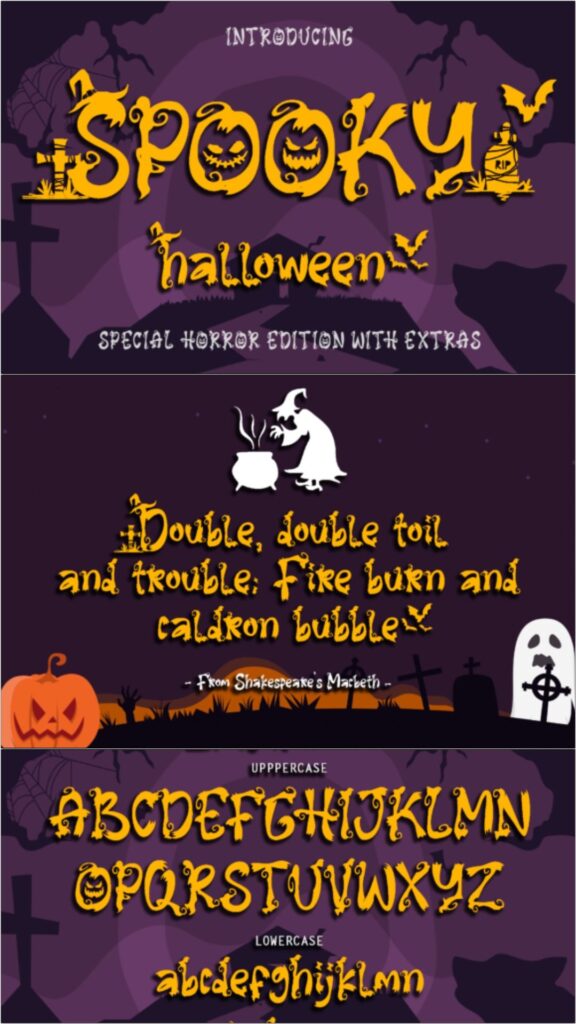
Spooky Halloween uses decorative shapes and an unmistakably creepy silhouette, making it a strong headline font for October graphics. I like it for designs that need an immediate seasonal signal without relying on extra cobwebs, pumpkins, or illustrated borders.
Its PUA-encoded extras give designers more room to customize names and short phrases. Because the characters carry substantial visual detail, I would reserve it for large titles rather than ingredient lists, event details, or other small supporting text.
Best for: party posters, shirt graphics, Halloween signs
Key features: decorative display style, PUA encoding, strong seasonal character
3. Retro Spooky
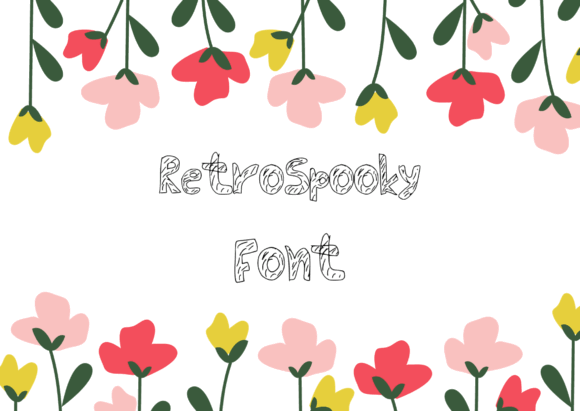
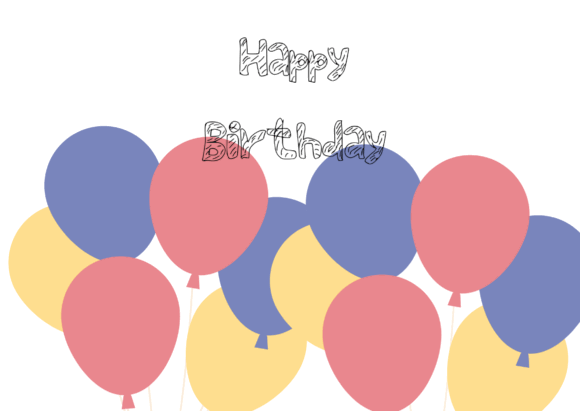
Retro Spooky is my pick for designers who want Halloween typography without the usual dripping blood or jagged horror treatment. Its nostalgic display style suits groovy ghost shirts, vintage party invitations, stickers, and colorful October social graphics.
The rounded retro personality pairs naturally with orange, cream, purple, and faded black palettes. It is less convincing for a genuinely frightening haunted-house campaign, but that softer tone makes it more useful for family products and trend-led apparel.
Best for: retro shirts, cute party invitations, stickers
Key features: nostalgic display shapes, cutting-machine compatibility, playful mood
4. Spooky
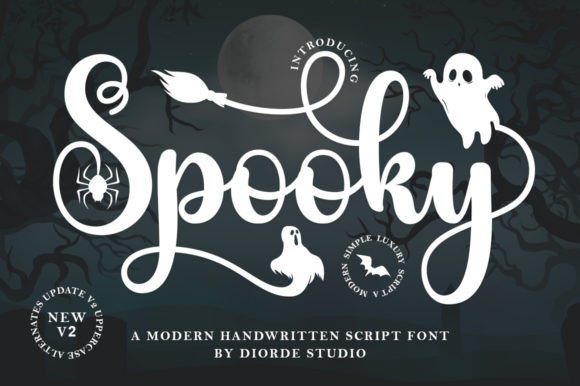
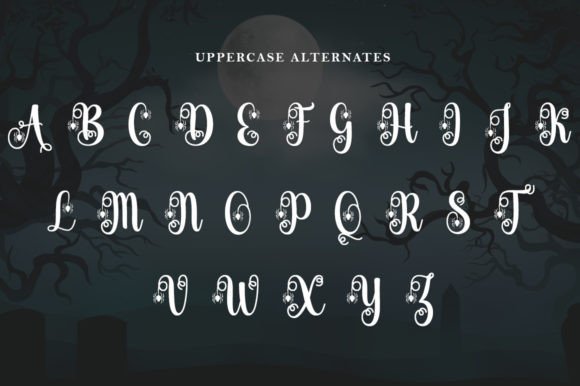
This Spooky font has a friendly Halloween identity that can support childrenโs crafts, classroom decorations, and casual party products. Its decorative letterforms add character while remaining less aggressive than the sharper horror fonts later in this collection.
I would use it for short names, treat-bag labels, or a central phrase on a sweatshirt. The PUA-encoded glyphs and swashes offer customization, although highly embellished alternates should be used selectively when cutting small vinyl lettering.
Best for: treat bags, classroom decor, casual apparel
Key features: fun Halloween style, PUA glyphs, decorative swashes
5. Scary Halloween
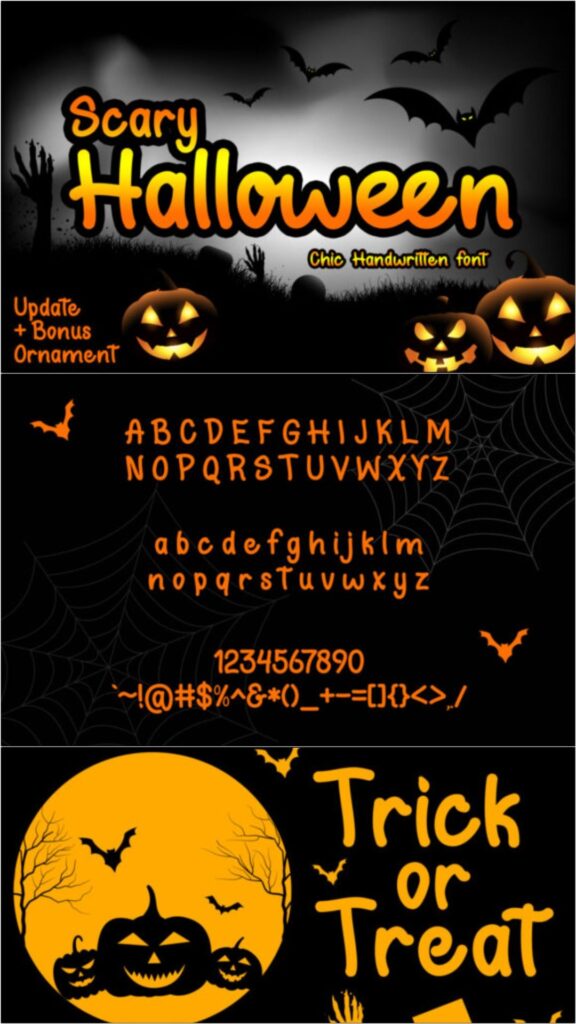
Despite its name, Scary Halloween leans cute and informal rather than terrifying. The handwritten construction is useful for friendly invitations, favor tags, childrenโs shirts, and product labels that need a relaxed handmade quality.
An included ornament dingbat font gives you extra decorative material for building coordinated layouts. I would pair the handwriting with a sturdy sans serif for dates and addresses, since the casual strokes are better at carrying personality than dense information.
Best for: favor tags, kidsโ shirts, friendly invitations
Key features: handwritten style, ornament dingbats, casual readable forms
6. Spooky Uppercase Sans Serif
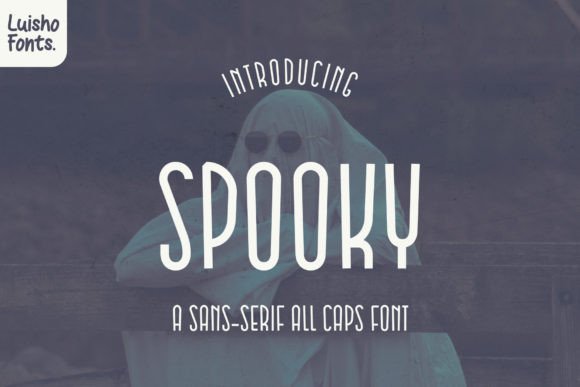
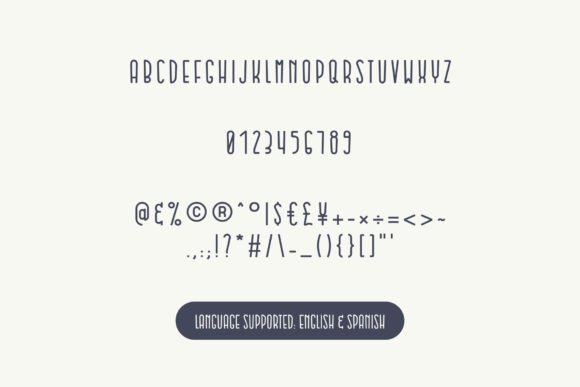
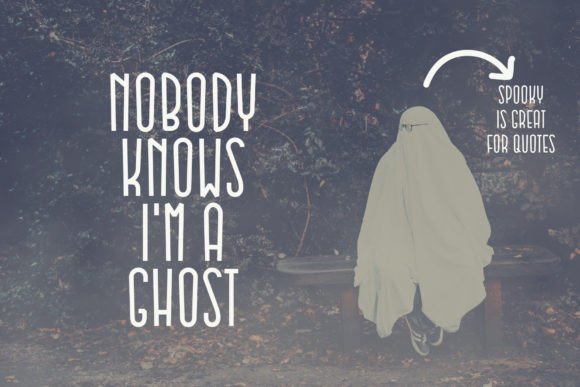
This uppercase sans serif takes a cleaner route to horror typography. Its simple capital structure is suitable for posters, social graphics, card headlines, product labels, and merchandise where decorative fonts might become too busy.
I like it as a bridge between themed lettering and practical display type. The all-cap format creates strong impact, but longer phrases may feel visually loud, so tighter copy and generous spacing will produce the strongest result.
Best for: product labels, poster headings, social graphics
Key features: uppercase alphabet, sans serif construction, horror-inspired styling
7. Scary Halloween Trio
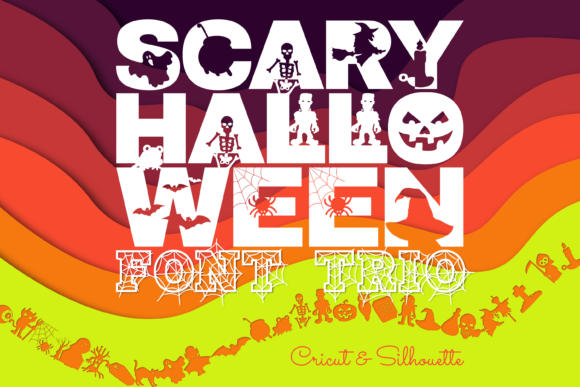
Scary Halloween Trio combines sans serif, serif, and dingbat components, which makes it especially useful for building a coordinated party suite. You can create a main title, secondary wording, and matching decorative accents without mixing unrelated type families.
My favorite use would be a childrenโs party set containing an invitation, cupcake toppers, labels, and a welcome sign. The style is more charming than frightening, so makers targeting adult horror fans may prefer one of the rougher display fonts below.
Best for: coordinated party suites, childrenโs games, classroom projects
Key features: three coordinated styles, serif and sans options, dingbat symbols
8. Blockton Halloween
Blockton Halloween uses thick, balanced letterforms that should hold their presence on both small stickers and large party posters. The block construction gives the font more structure than highly irregular novelty lettering, while the spooky treatment keeps it seasonally relevant.
I would choose it for product packaging, apparel, classroom signs, and bold greeting cards. Its weight is helpful for cutting and printing, although a full paragraph in this style would feel heavy and reduce the impact of the individual letters.
Best for: packaging, stickers, large signs
Key features: chunky block forms, bold readability, playful spooky details
9. Halloween Witch
Halloween Witch blends vintage display lettering with a dramatic seasonal mood. It suits apothecary labels, witch-themed invitations, potion-bar signs, bookish Halloween decor, and packaging that needs an older, mysterious appearance.
I would pair it with aged paper textures, botanical drawings, moons, or restrained ornamental borders. The theatrical styling may lose clarity at label-size dimensions, so keep the primary wording short and move practical details into a simpler companion font.
Best for: apothecary labels, witch parties, vintage decor
Key features: vintage influence, dramatic display shapes, magical atmosphere
10. Brushstroke Horror
Brushstroke Horror has the uneven energy of hand-painted warning lettering, making it more convincing for frightening themes than polished novelty fonts. I would use it on haunted-house flyers, horror movie graphics, escape-room promotions, and distressed seasonal apparel.
The rough edges provide atmosphere before any illustrations are added. That texture can become muddy in small prints or intricate vinyl cuts, so this is best treated as a large-format headline font with minimal surrounding detail.
Best for: haunted attractions, horror posters, distressed shirts
Key features: rough brush texture, scary display style, high visual energy
11. Hello Halloween
Hello Halloween is built around a clearly seasonal decorative style that suits October greetings, party graphics, and themed merchandise. The lettering creates an enchanted nighttime mood rather than a graphic horror look, making it approachable for a broad family audience.
I would use it for short welcoming phrases, printable wall art, cards, or a front-facing shirt design. Because decorative characters already carry substantial personality, surrounding artwork should remain simple enough to keep the words in focus.
Best for: greeting cards, wall art, family party graphics
Key features: decorative characters, enchanted mood, strong Halloween identity
12. Spooky Halloween Sans Serif
This version of Spooky Halloween uses sharper, bolder sans serif forms to create a tense and atmospheric headline. It is a strong candidate for haunted-house posters, event flyers, party invitations, and warning-style decor.
The defined letter structure should be easier to position in modern layouts than a loose script. I would avoid using it for lengthy wording, since the pointed shapes and dramatic rhythm are intended to command attention rather than quietly deliver information.
Best for: haunted-house flyers, event posters, eerie invitations
Key features: sharp sans serif forms, bold weight, atmospheric style
13. Halloween Nightmare
Halloween Nightmare is an expressive display font for projects that need a darker, more forceful title. Its unusual letter shapes can anchor horror posters, seasonal album art, haunted-event graphics, and bold apparel designs.
I would let this font occupy most of the composition rather than competing with multiple illustrations. It is not the best option for gentle childrenโs crafts or formal invitations, but its intensity is useful when a design must look unsettling at first glance.
Best for: horror apparel, haunted events, dramatic posters
Key features: unusual display forms, dark mood, attention-grabbing silhouette
14. Horror Spray
Horror Spray combines brushstroke texture with dripping and bone-like details, creating an intentionally graphic horror appearance. I would use it for haunted attractions, scary postcards, event headings, theatrical posters, or adult Halloween merchandise.
The built-in effects reduce the need for extra decorative overlays, which can speed up a simple one-color design. Those same details create more production complexity, so inspect the artwork carefully before cutting it at small sizes or applying it to textured fabric.
Best for: horror events, theatrical posters, scary merchandise
Key features: brushstroke texture, dripping details, bone-inspired forms
15. Halloween Display Font
This bold Halloween display font provides a direct seasonal look for signs, craft projects, and merchandise. Its strong shapes make it useful when the title must remain visible from a distance or compete with illustrated pumpkins, bats, and other decorative elements.
I would consider it for porch signs, treat buckets, large decals, and sweatshirt graphics. The design is intentionally themed, so it has limited use outside the October season, but that specificity can be an advantage for focused product collections.
Best for: porch signs, large decals, seasonal sweatshirts
Key features: bold display weight, cutting-machine compatibility, obvious Halloween styling
16. Halloween Script
Halloween Script introduces a handwritten, flowing alternative to chunky monster lettering. It suits invitations, personalized signs, place cards, shirts, and craft projects that need a witchy or magical quality without becoming overly formal.
PUA-encoded glyphs and swashes allow you to create more distinctive names and opening words. I would simplify the alternates for vinyl work, since overlapping flourishes and thin connections can increase weeding difficulty at small dimensions.
Best for: personalized signs, invitations, witchy shirts
Key features: handwritten script, PUA encoding, decorative swashes
17. Horror
Horror uses thick display letters that provide a solid foundation for frightening seasonal graphics. It can carry a main title on a shirt, party poster, sign, or sticker without depending on thin strokes or delicate flourishes.
The substantial weight should translate better to basic cut projects than highly distressed alternatives. Its personality is broad rather than subtle, so I would add originality through the phrase, layout, color treatment, or accompanying illustration.
Best for: bold shirts, simple decals, horror signs
Key features: thick letterforms, spooky display style, broad craft compatibility
18. Halloween Spooky
Halloween Spooky has a trendy, playful display style that fits contemporary October graphics. I would use it for youth-oriented apparel, tote bags, printable signs, stickers, and social posts where a severe horror font would feel out of place.
Its approachable personality gives you freedom to use brighter palettes and cute illustrations. The font is less suited to elegant witch themes or serious horror branding, but it can serve as a reliable headline for cheerful seasonal merchandise.
Best for: trendy shirts, tote bags, cute printables
Key features: playful display style, broad craft compatibility, friendly seasonal mood
19. Spooky Nigth
Spooky Nigth combines a retro signature influence with cute Halloween-themed character details. The result is a decorative font suited to nostalgic shirts, party prints, mugs, childrenโs products, and social graphics built around friendly ghosts and bats.
I like it for designs where the typography itself needs to provide most of the illustration. The detailed characters can become visually dense in long phrases, so use a few memorable words and preserve generous spacing around the title.
Best for: nostalgic shirts, mugs, cute Halloween graphics
Key features: retro influence, character decorations, signature-style personality
20. Super Horror
Super Horror mixes horror references with cute, groovy, and retro styling. That hybrid direction makes it useful for popular eerie-cute products, including shirts, posters, party graphics, stickers, and merchandise aimed at customers who prefer playful darkness.
I would build a design around a compact two- or three-word phrase and let the font supply the visual hook. It may feel too lighthearted for a realistic haunted-house campaign, but the crossover style provides more commercial versatility than a strictly gruesome typeface.
Best for: eerie-cute apparel, retro posters, themed merchandise
Key features: groovy horror style, retro influence, playful display forms
21. Freaky Halloween
Freaky Halloween is a dingbat font rather than a conventional headline family, so I see it as a supporting design resource. It can help you add themed symbols to invitations, labels, cards, classroom sheets, and simple craft compositions.
Dingbats are useful for creating repeat patterns or matching icons without sourcing separate graphics. You will still need a readable text font for names and event details, and each symbol should be checked at production size before cutting or engraving.
Best for: decorative accents, repeat patterns, party stationery
Key features: Halloween dingbats, quirky symbols, coordinated graphic elements
22. Spooky Coming
Spooky Coming uses jagged edges and bold letter shapes to communicate a more traditional undead-horror mood. It is an obvious fit for haunted-house posters, scary party invitations, warning signs, and Halloween products with zombies, skeletons, or graveyard imagery.
The irregular silhouette gives short words immediate impact. I would avoid tightly packed lines because the rough edges need breathing room, and I would simplify nearby artwork so the headline remains legible from a distance.
Best for: zombie themes, haunted posters, scary invitations
Key features: jagged edges, bold lettering, undead-inspired mood
23. Happy Halloween
Happy Halloween is a quirky display font for upbeat seasonal messages rather than frightening horror designs. Its character makes it suitable for party invitations, greeting cards, tote bags, classroom decor, childrenโs clothing, and simple social graphics.
I would pair it with smiling pumpkins, candy shapes, friendly ghosts, or colorful confetti. The casual form may not suit luxury packaging or gothic themes, but it gives makers an accessible option for family-oriented October products.
Best for: childrenโs apparel, greeting cards, classroom decor
Key features: quirky display letters, cheerful tone, flexible seasonal use
24. Shadow Horror
Shadow Horror adds a creepy atmosphere while retaining enough structure for headlines and selected supporting copy. That balance makes it useful for Halloween stationery, event graphics, product labels, themed packaging, and poster titles.
I would choose it when a layout needs darker personality without the extreme distress of a brush or spray font. Although the designer presents it as flexible, longer copy should still be tested carefully because themed display faces can fatigue the reader quickly.
Best for: stationery, packaging, poster titles
Key features: creepy atmosphere, structured letterforms, versatile display use
25. Umitype Halloween
Umitypeโs Halloween font has an expressive display style created for posters, apparel, embroidery, crafts, and other festive applications. Its playful but haunting letterforms provide a broad middle ground between cute party typography and severe horror lettering.
I would consider it for makers who sell several kinds of seasonal products and need one recognizable headline font across the collection. For embroidery or small cuts, test the narrowest spaces and internal counters before producing a full batch.
Best for: embroidery designs, apparel, seasonal posters
Key features: playful haunting forms, versatile display use, broad product suitability
26. Witch Halloween
This Witch Halloween font uses friendly handwritten forms, giving witch-themed designs a casual and approachable voice. It suits personalized shirts, mugs, treat bags, party invitations, signs, and crafts intended for children or lighthearted seasonal shoppers.
I would use it for conversational phrases rather than formal event branding. Its relaxed strokes create charm, but designs that need strong distance readability may benefit from pairing it with a heavier block font for the most important word.
Best for: mugs, treat bags, casual witch shirts
Key features: friendly handwriting, playful tone, personalization potential
27. Happy Spooky
Happy Spooky is a decorative Halloween font designed for cute and cartoon-inspired projects. It can support shirts, tote bags, stickers, hats, cards, logos, and childrenโs products without introducing an overly frightening tone.
This is one of my picks for a coordinated family collection because the mood can stretch across several product formats. The decorative forms may need extra spacing in compact logos, and I would keep background patterns restrained to avoid visual clutter.
Best for: family collections, stickers, cartoon-themed crafts
Key features: cute decorative style, broad product use, friendly Halloween mood
28. Some Witch
Some Witch is a cute Halloween script that brings a magical, feminine quality to seasonal phrases. I would use it for witch-themed mugs, party invitations, boutique apparel, personalized gifts, labels, and printable wall art.
The cursive movement can make an otherwise simple design feel custom, especially when used for a name or a single expressive word. Thin joins and looping strokes may be less convenient for very small vinyl decals, so scale and material choice matter.
Best for: boutique apparel, personalized gifts, witch invitations
Key features: cute script style, magical character, flowing letter connections
29. Ghost Color Font
Ghost is a detailed color font with cute Halloween imagery built into its characters. It can create finished-looking printable titles for party posters, sublimation products, stickers, cards, and digital graphics with minimal extra illustration.
The black version is the practical choice for Cricut and other cutting-machine projects. The color version requires compatible software and is not intended for Cricut Design Space, so confirm your workflow before selecting it for a production project.
Best for: sublimation, printable posters, colorful stickers
Key features: detailed color letters, black cutting version, built-in Halloween imagery
30. Ghost Display Font
This Ghost font offers a quirky display style that can add personality to Halloween headlines without becoming visually aggressive. It is suitable for shirts, cards, signs, stickers, party menus, and simple craft projects built around friendly supernatural themes.
I would use it for a main phrase and pair it with a neutral sans serif for secondary details. The irregular personality is part of its appeal, but careful alignment will help keep multiword titles from looking accidentally uneven.
Best for: friendly ghost shirts, cards, party menus
Key features: quirky display shapes, broad compatibility, approachable spooky style
31. Misti Spooky Halloween
Mistiโs Spooky Halloween uses a chalky, crayon-like texture and includes special symbols for a star, bat, and two ghosts. It is an appealing choice for classroom projects, chalkboard signs, childrenโs parties, printable cards, and handmade-looking apparel.
The texture creates character without requiring a separate distress effect. Because that detail can make the font slower to load and more complex to cut, I would use it primarily for print or larger-format craft applications.
Best for: chalkboard signs, classroom projects, handmade cards
Key features: chalky texture, built-in symbols, playful handwritten mood
32. Spook Halloween
Spook Halloween fills bold uppercase characters with monster-inspired details such as teeth, eyes, and irregular cutouts. It is almost an alphabet and illustration set in one, making it useful for childrenโs posters, party banners, classroom displays, and statement apparel.
The uppercase-only focus is ideal for short, energetic wording. Each letter contains substantial interior detail, so I would favor print, sublimation, or large cuts rather than tiny adhesive-vinyl names.
Best for: monster parties, classroom displays, statement shirts
Key features: uppercase alphabet, monster-filled letters, bold decorative construction
33. Groovy Witch
This Witch font uses groovy curves and stylized tails to create a bright, playful witch aesthetic. It is suited to shirts, mugs, cards, banners, social posts, and seasonal stationery aimed at customers who like retro Halloween trends.
I would combine it with simple stars, moons, or a minimal witch-hat illustration rather than a dense scene. Its cheerful personality is not intended for dark horror work, but that makes it more accessible for everyday craft products.
Best for: groovy witch shirts, mugs, retro banners
Key features: curved display forms, stylized tails, cheerful retro tone
34. Halloween Spooky Color Font
Halloween Spooky combines colorful fall tones with cute ghost imagery and includes multiple styles plus matching clip art. It is well suited to sublimation, printable party decor, personalized names, posters, stickers, and digital seasonal products.
The black version supports Cricut and other cutting-machine workflows, while the color version requires compatible design software. I would choose this set for print-led products where the illustrated letter details can remain visible and vibrant.
Best for: sublimation, personalized posters, printable party decor
Key features: multiple styles, matching clip art, black cutting version
35. Spooky Color Font
Spooky is a detailed OpenType-SVG color font for cute Halloween print and digital work. Its illustrated characters can become the central feature of stickers, sublimation designs, cards, posters, and childrenโs party graphics.
This version is intended for software that supports color-font technology, including compatible Adobe, Silhouette, and Inkscape workflows. It is not a Cricut font, so makers focused on Design Space should select a standard black font from this collection instead.
Best for: color stickers, sublimation, digital graphics
Key features: OpenType-SVG format, illustrated letters, cute Halloween styling
36. Witch Halloween Dingbats
Witch Halloween is a sketched dingbat font filled with spooky decorative imagery. It is useful for creating invitation accents, repeating patterns, labels, logos, craft signs, and party decorations with a coordinated hand-drawn appearance.
I would use these symbols alongside a cleaner text family rather than asking the dingbats to carry an entire layout. Sketch detail can become delicate during small cuts, so print applications or larger vinyl elements are the safer use cases.
Best for: invitation accents, patterns, witch-themed labels
Key features: sketched dingbats, spooky symbols, coordinated hand-drawn style
37. Spooky Decorative Font
This Spooky font has a playful decorative construction suitable for book covers, posters, packaging, merchandise, and logos. It offers a general seasonal accent rather than committing to one specific ghost, witch, or horror subtheme.
That flexibility makes it useful for makers who want a font they can adapt across several Halloween collections. I would still limit it to display text, since decorative irregularity tends to become tiring in small descriptions or multi-line copy.
Best for: merchandise, packaging, book covers
Key features: playful decorative shapes, broad seasonal use, display-focused design
38. Ghost Halloween Sans Serif
Ghost Halloween balances quirky spooky details with a recognizable sans serif structure. I would use it for posters, product packaging, childrenโs party signs, shirts, labels, and modern layouts that need personality without sacrificing the basic letter shapes.
Its approachable tone can sit beside either bold illustrations or simpler compositions. The style is less frightening than many horror fonts, making it a better match for retail products intended for families and casual Halloween celebrations.
Best for: modern party signs, packaging, family apparel
Key features: sans serif structure, quirky ghost mood, flexible layout pairing
39. Ghost Halloween Alphabet
Ghost Halloween turns individual letters into ghost-like characters, allowing the alphabet itself to serve as the illustration. It is a fun choice for name prints, classroom banners, childrenโs shirts, stickers, treat bags, and personalized party decorations.
The character concept is strongest with short wording where each letter remains easy to see. I would avoid squeezing a long sentence into a narrow space, since the ghost details need sufficient scale to remain recognizable.
Best for: personalized names, treat bags, classroom banners
Key features: ghost-shaped letters, decorative alphabet, strong personalization potential
40. Scary Spooky
Scary Spooky is a focused Halloween display font for titles that need an immediate creepy identity. I would use it on haunted-party invitations, horror-themed shirts, signs, posters, stickers, and social graphics with compact wording.
Its direct theme makes design decisions simple, but it also means the font has limited year-round versatility. For a polished result, combine it with a plain secondary font instead of adding another decorative typeface to the same composition.
Best for: scary party invitations, shirts, compact posters
Key features: focused Halloween style, creepy display forms, strong headline presence
41. Cheetah Doodle Spooky Halloween
Cheetah Doodleโs Spooky Halloween provides another decorative option for friendly seasonal designs. Its themed shapes can support party cards, childrenโs crafts, stickers, shirts, gift tags, and printable decorations that need a lively handmade look.
I would use it as the personality font in a simple two-font hierarchy. Decorative lettering becomes harder to compare when multiple effects compete, so a plain sans serif is the best partner for dates, sizing, or product details.
Best for: gift tags, party cards, childrenโs crafts
Key features: doodle-inspired character, decorative display style, approachable seasonal mood
42. Cutie Kate Witch Halloween
This Witch Halloween font is aimed at cute and playful seasonal designs rather than dark occult imagery. It fits tote bags, mugs, shirts, stickers, greeting cards, childrenโs parties, and personalized witch-themed gifts.
I would select it for customers who enjoy cheerful October products and lighthearted phrases. Its softer visual tone will not create much suspense for horror posters, but it provides a more welcoming choice for family markets and craft fairs.
Best for: craft-fair gifts, family shirts, playful witch products
Key features: cute seasonal style, friendly lettering, broad gift potential
43. Witchy
Witchy is a Halloween display font with a magical and horror-influenced style. It suits potion labels, gothic party invitations, witchy shirts, mystical posters, book covers, and packaging that needs a darker enchanted atmosphere.
I would choose it over a cute script when the audience prefers gothic or occult-inspired visuals. The decorative shape is best reserved for the primary title, with a neutral serif or sans serif handling practical information.
Best for: potion labels, gothic invitations, mystical shirts
Key features: magical horror style, decorative display forms, darker witch aesthetic
44. Condensed Halloween
This Halloween font uses bold condensed letterforms with playful cuts and angles. The narrow width is useful for tall posters, labels, package fronts, banners, shirt designs, and signs where the wording must fit into limited horizontal space.
I like condensed fonts for strong vertical compositions, especially when paired with a large moon, doorway, or character illustration. Tight spacing can close the internal shapes, so review the final word at print or cut size before production.
Best for: narrow labels, tall posters, compact shirt layouts
Key features: condensed width, bold weight, playful angular cuts
45. Lisna Craft Halloween
Lisna Craftโs Halloween font is a straightforward seasonal display choice for DIY projects, cards, signs, stickers, and merchandise. It gives a composition a clear October identity while remaining adaptable to different illustrated themes.
I would use it for makers who need a general-purpose Halloween headline rather than a narrowly defined ghost or witch style. The broad theme means the surrounding phrase and artwork will be important for creating a distinctive finished product.
Best for: DIY signs, stickers, general seasonal merchandise
Key features: broad Halloween theme, display construction, craft-oriented use
46. Calligraphic Halloween
This Halloween font takes a more elegant calligraphic direction, making it suitable for adult dinner invitations, seasonal menus, boutique packaging, greeting cards, and refined witch-themed products. Its silhouette offers a change from the heavy monster lettering common in Halloween collections.
I would pair it with black, cream, muted gold, burgundy, or deep green rather than a bright childrenโs palette. Calligraphic forms can be delicate for small vinyl work, so print, foil, or larger signage may show the style more clearly.
Best for: dinner invitations, boutique packaging, seasonal menus
Key features: calligraphic silhouette, elegant mood, refined Halloween styling
See Calligraphic Halloween Font
47. Halloween Spooky Font
Halloween Spooky Font is a craft-focused seasonal typeface that can support shadow boxes, Cricut projects, signs, party decorations, and layered paper designs. Its strong themed appearance makes it useful when the lettering must connect visually with pumpkins, haunted houses, and cut-paper scenes.
I would use it at a generous size so the decorative features survive material changes and cutting. Before building a complex shadow box, run a small test cut to identify narrow bridges, enclosed counters, or details that may require simplification.
Best for: shadow boxes, layered paper crafts, Cricut signs
Key features: craft-focused design, strong seasonal appearance, cutting-machine use
See Halloween Spooky Craft Font
How I Picked These Halloween Fonts
I prioritized fonts with a clear seasonal identity, useful letterform contrast, and enough readability for their intended format. I also considered cutting complexity, small-size performance, compatibility notes, supporting symbols, and whether the style suits products people actually make for Halloween.
- For parties: readable lettering with enough personality for invitations, banners, menus, and welcome signs.
- For crafts: solid shapes, manageable details, and compatibility with common cutting workflows.
- For seasonal products: distinctive typography that can carry a shirt, sticker, mug, package, or printable design.
- For horror themes: sharper, rougher, or darker letterforms that suit haunted attractions and adult-focused merchandise.
Which Halloween Font Should You Choose?
The strongest Halloween font is the one that matches both your audience and your production method. My practical picks are Blockton Halloween for bold signs, Some Witch for boutique-style personalization, Spook Halloween for playful monster lettering, Horror Spray for darker event graphics, and Halloween Spooky Color Font for detailed print and sublimation projects.
Whichever direction you choose, test the font with the actual phrase, material, and final dimensions. A simple production check can reveal spacing, cutting, and readability problems before they affect an entire batch of invitations, shirts, signs, or seasonal products.
Some links in this article may be affiliate links. If you purchase through them, we may earn a small commission at no extra cost to you. Thanks for supporting our work.
Frequently Asked Questions
What font style is best for a Halloween party invitation?
Choose a decorative font for the party name and a plain serif or sans serif for the date, address, and RSVP details. Cute handwritten or ghost fonts suit childrenโs parties, while witchy scripts and sharp display fonts fit adult events.
Which Halloween fonts are easiest to use with Cricut?
Bold fonts with solid shapes, open counters, and limited distress are usually easier to cut and weed. Avoid relying on OpenType-SVG color files in Cricut Design Space, and test detailed decorative fonts before creating a large batch.
Can I use one Halloween font for an entire design?
You can use one family when it includes coordinated styles, but most decorative Halloween fonts are strongest as headlines. Pairing the themed font with a neutral secondary typeface usually improves readability and visual hierarchy.
What Halloween fonts are best for products to sell?
For shirts and signs, look for bold shapes that remain readable from a distance. For sublimation and printables, detailed color fonts can add more illustration. For personalized gifts, scripts and ghost alphabets give names a stronger custom appearance.